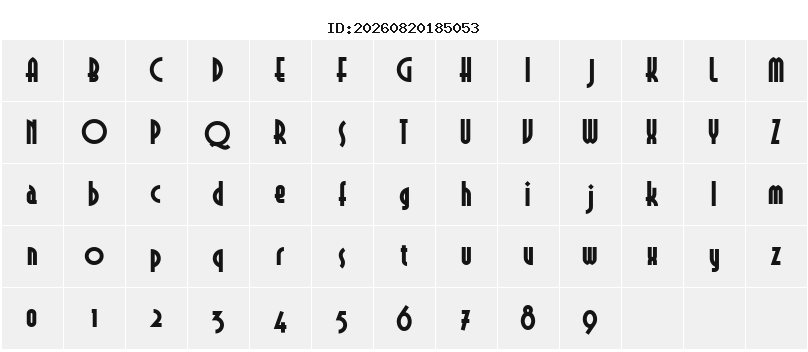
• Font Name: Selznick Remix NF
• Full Font Name: Selznick Remix NF
• Designer: Nick Curtis
• Manufacturer: Nick's Fonts
About Selznick Remix NF.ttf
Selznick Remix NF.ttf is a modern, elegant sans-serif font designed for ultimate readability and visual harmony. Perfect for branding, headlines, web design, and print materials.